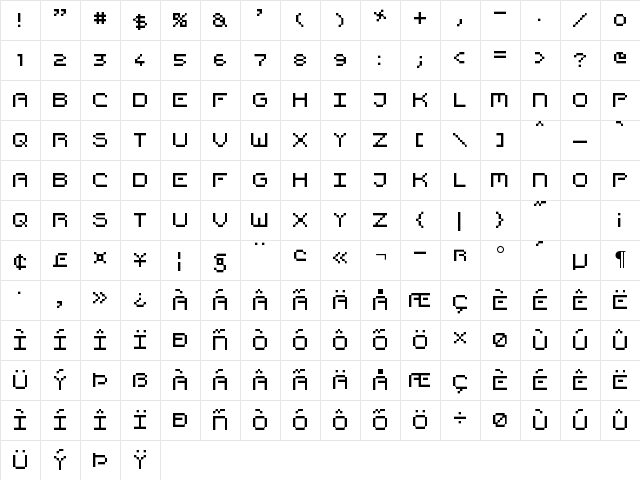
Pixel Countdown Regular
| Foundry | Pixel Sagas |
| Designer | Neale Davidson |
Design Context for Pixel Countdown Typeface
Pixel Countdown celebrates the constraints of early digital type, turning pixel geometry into a distinctive and immediately recognisable style.
Well-suited to indie game interfaces, retro computing aesthetics, and pixel art-adjacent design work.
Pro Tip: Use Pixel Countdown at sizes that align with its pixel grid for the sharpest rendering — scaling to non-integer multiples can introduce unwanted blur.